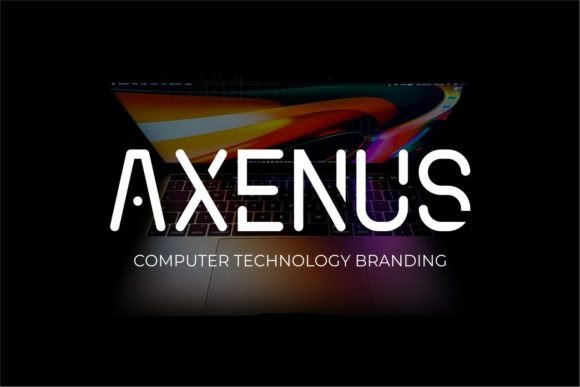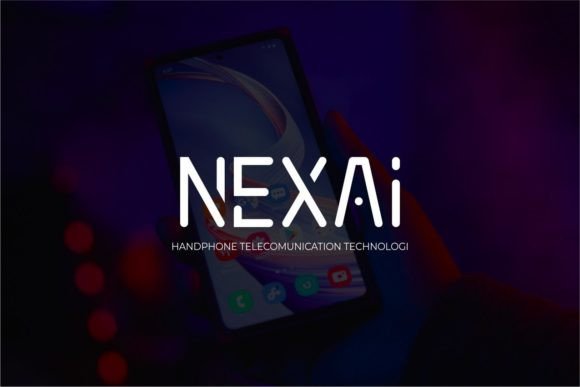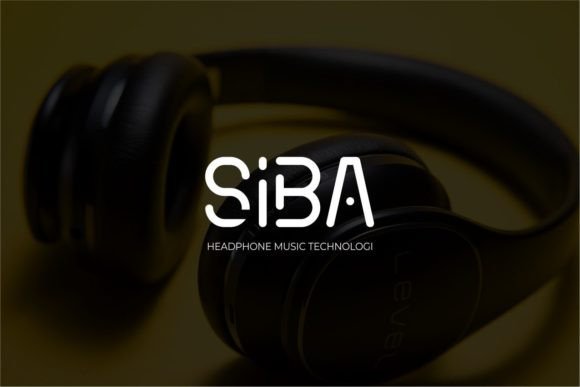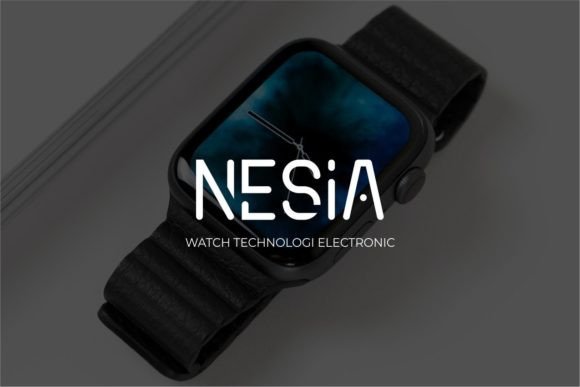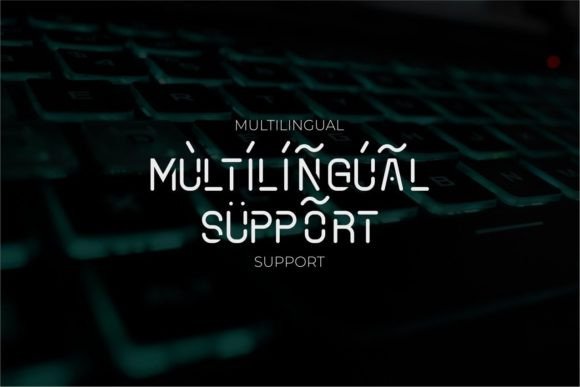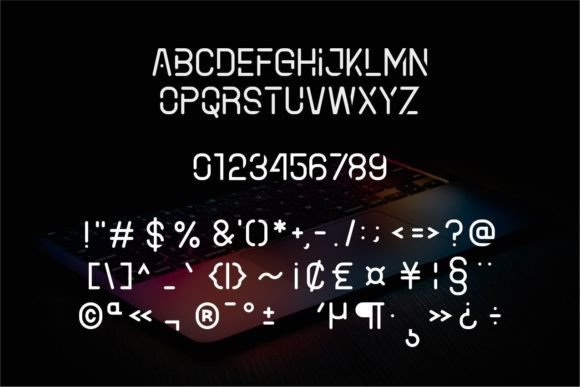
Unlock the Power of Beiamox Font in Your Next Design Project
Have you ever been stuck on a design project, trying to convey a sense of innovation and modernity, but struggling to find the right font to bring it all together? I know I have. It’s those moments of creative frustration that make us designers appreciate the perfect font, and Beiamox Font is just that – a game-changer.
Beiamox Font is a cutting-edge sans serif font designed to add a touch of futurism to any project. With its clean lines, geometric shapes, and futuristic vibe, it’s the perfect addition to modern designs. Whether you’re working on a tech startup’s website, a sci-fi novel, or a futuristic concept art, Beiamox Font is sure to elevate your design to the next level.
Beiamox Font Key Features
- Unique Characteristic: Beiamox Font is a modern sans-serif font with a unique blend of geometric and organic elements, making it suitable for various design projects, from corporate identities to digital interfaces.
Beiamox Font Review
I recently had the chance to work with the Beiamox font, and overall, I’m impressed with its unique style and features. ✨ The font has a clean, modern design that’s perfect for creative projects, especially those that require a touch of sophistication.
- Unique design style that sets it apart from other fonts
- Highly legible, even at small font sizes
- Supports a wide range of languages
- Available in various weights and styles
However, like any font, Beiamox has its limitations. ⚠️ One of the main issues I encountered was the lack of compatibility with certain software programs. I also found that the font can be quite heavy, making it difficult to read at very large font sizes.
Despite its limitations, I think Beiamox is a solid choice for designers looking for a unique and stylish font. With its clean design and wide range of features, it’s perfect for creative projects that require a touch of sophistication. However, be aware of the potential compatibility issues and use it judiciously.
Tips for Getting the Most Out of Beiamox Font
Use Beiamox Font to create a cohesive brand identity.
Combine Beiamox Font with other design elements to create a visually appealing design.
Experiment with different font sizes and colors to add depth and interest to your design.
Beiamox Font is ideal for:
Corporate branding
Marketing materials
Editorial content
Presentations and reports
Alternatives to Beiamox Font for Designers
Montserrat Font is a sans-serif typeface designed by Julieta Ulanovsky in 2011. It is ideal for use in digital media, such as websites and mobile apps, due to its clean and modern aesthetic. Montserrat Font is more geometric in design compared to Beiamox Font, making it suitable for creating a sleek and minimalist look.
Comparison to Beiamox Font: Montserrat Font has a more angular and geometric feel, whereas Beiamox Font has a more rounded and friendly appearance.
Lato Font is a sans-serif typeface designed by Łukasz Dziedzic in 2010. It is highly versatile and can be used for a wide range of applications, including print and digital media. Lato Font has a more elegant and refined look compared to Beiamox Font, making it suitable for creating a sophisticated and professional atmosphere.
Comparison to Beiamox Font: Lato Font has a more classic and traditional feel, whereas Beiamox Font has a more modern and trendy appearance.
Avenir Font
Avenir Font is a sans-serif typeface designed by Adrian Frutiger in 1988. It is known for its clean and elegant lines, making it suitable for use in high-end branding and advertising. Avenir Font has a more luxurious and premium feel compared to Beiamox Font, making it ideal for creating a high-end and sophisticated look.